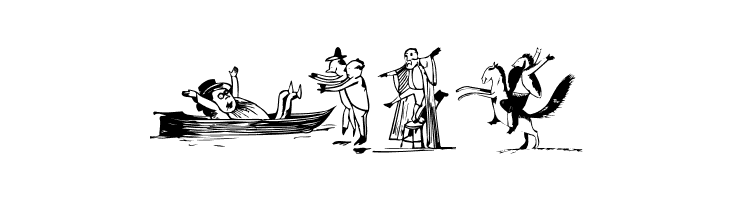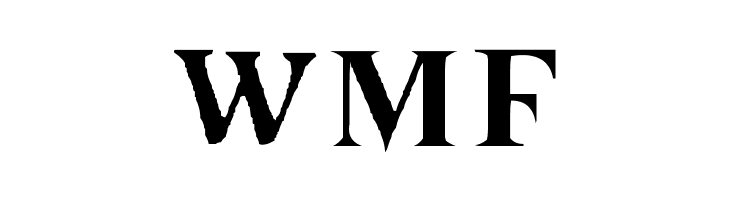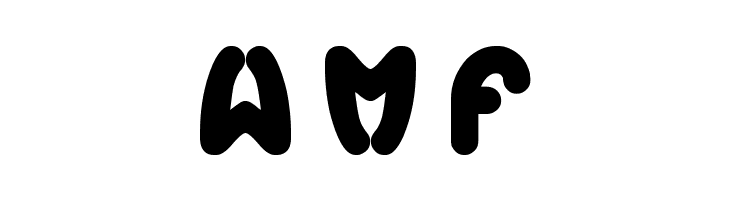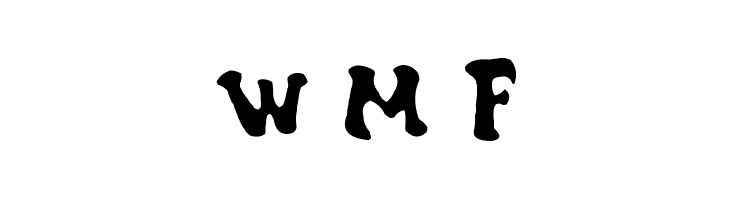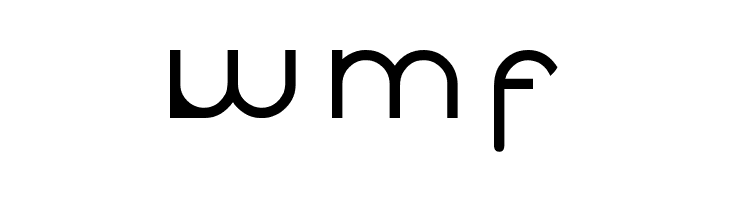
• Dreamline
A playful, whimsical font with smooth, flowing curves and slightly irregular letterforms.
• Dreamwish
A whimsical, bold font with playful, hand-drawn letterforms.
• Dropping tears sans
A modern, rounded font with a playful and approachable style.
• DS-Schmuck
• DuerTWOo
A bold, expressive font with a hand-painted, brush-like style.
• DustySalmon
A bold, textured font with a distressed, vintage appearance.
• Dwarves
• E1234
A segmented, digital-style font inspired by classic LED displays.
• EarlySurrealism1
Surrealist dingbat font with imaginative, hand-drawn illustrations.
• earthheart
A bold, playful font with thick, rounded strokes and a retro-modern appeal.